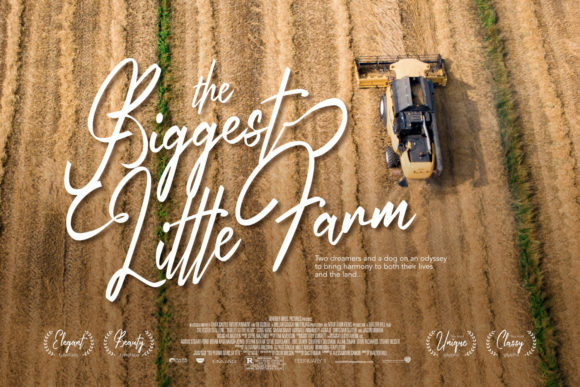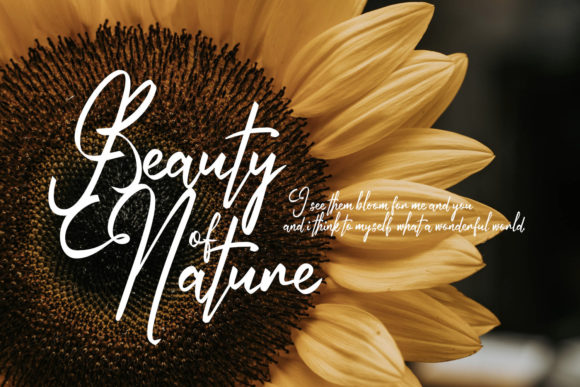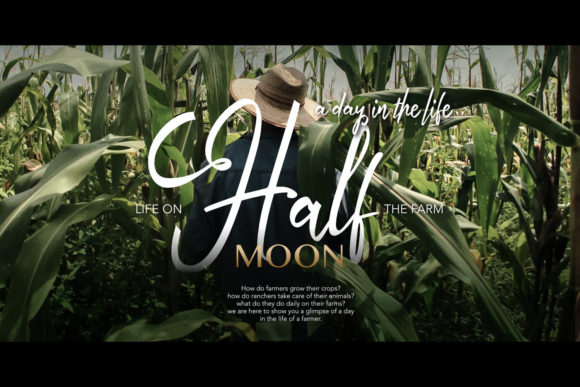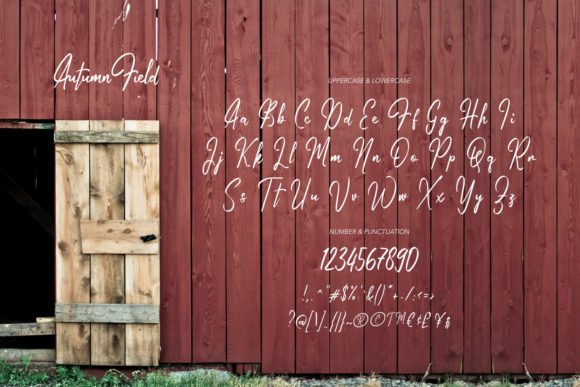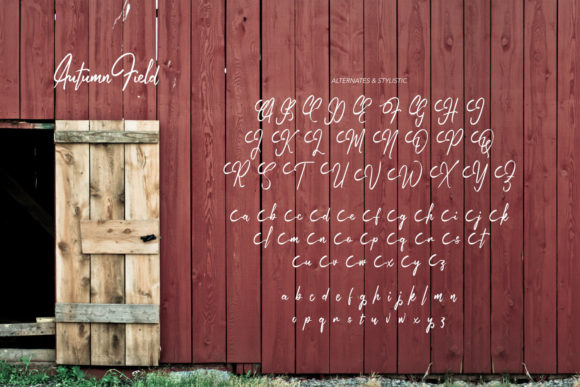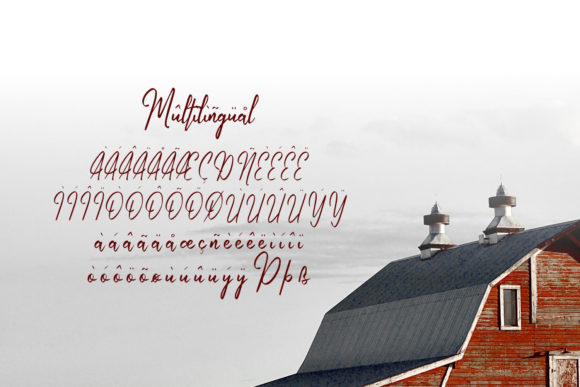
Autumn Field Font
About Autumn Field Font
Autumn Field is a stylish and dainty script font. It is suitable for any projects such as: logos, branding projects, label, photography, watermark, special events, and all your other lovely projects that need a beautiful script taste. Autumn Field is PUA encoded which means you can access all of the glyphs and swashes with ease.